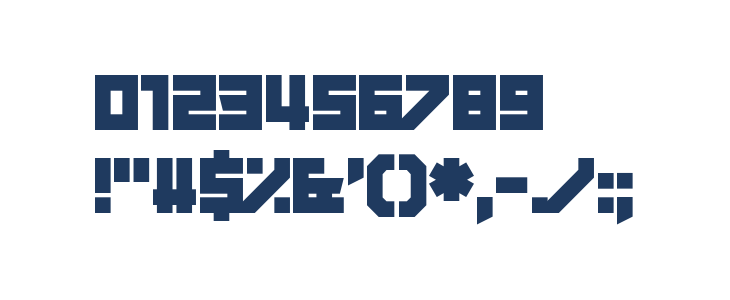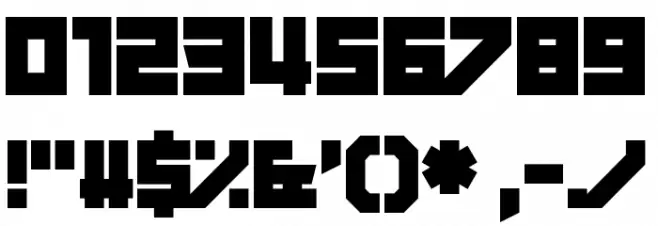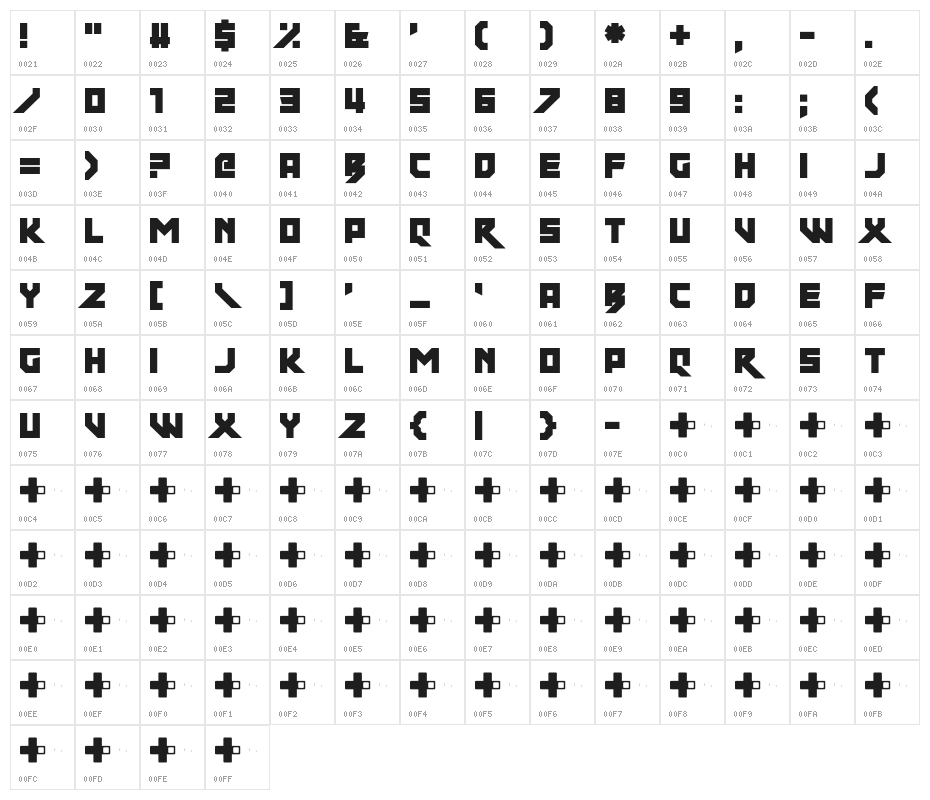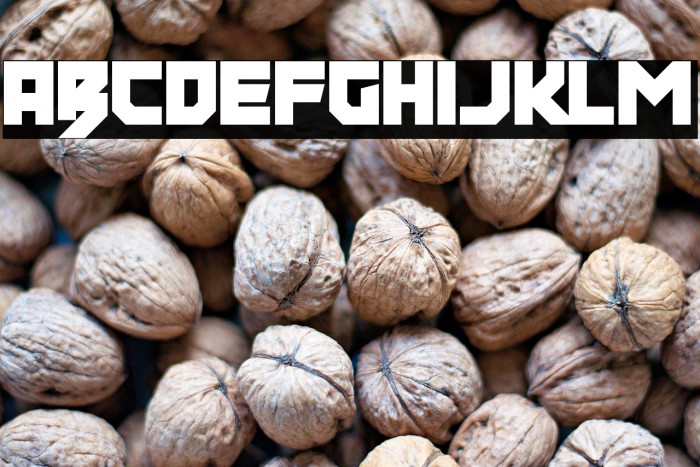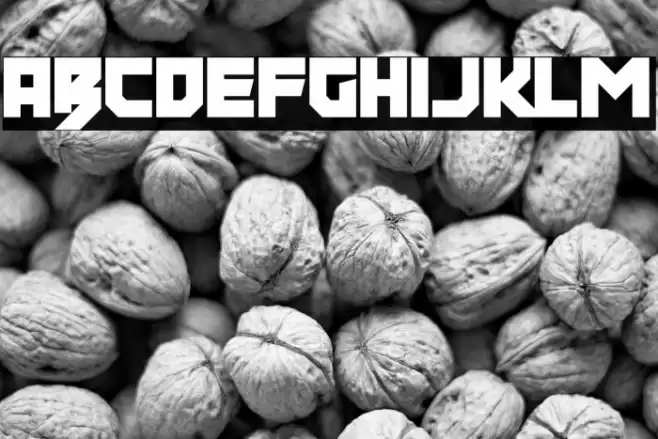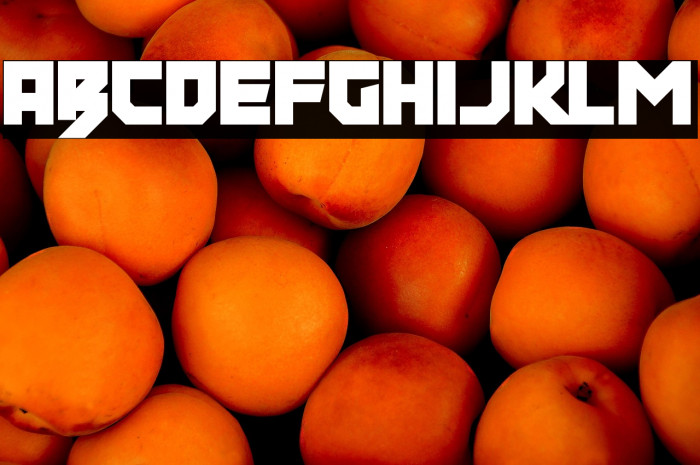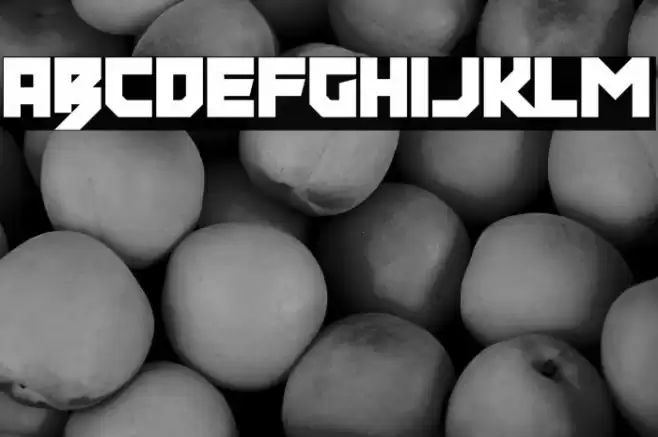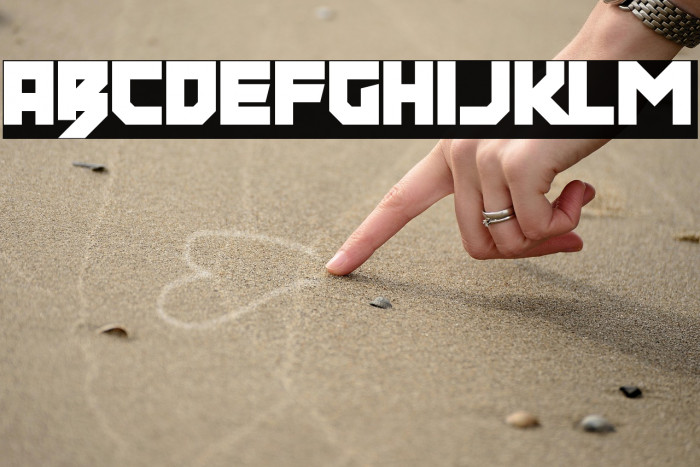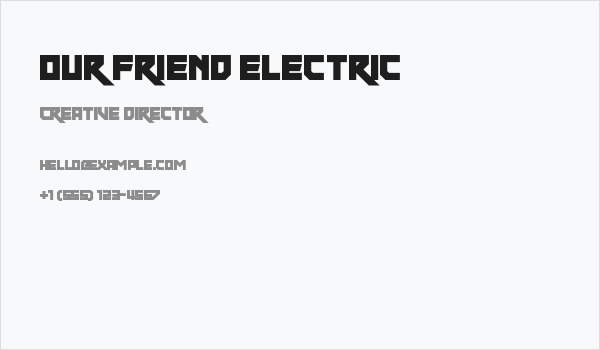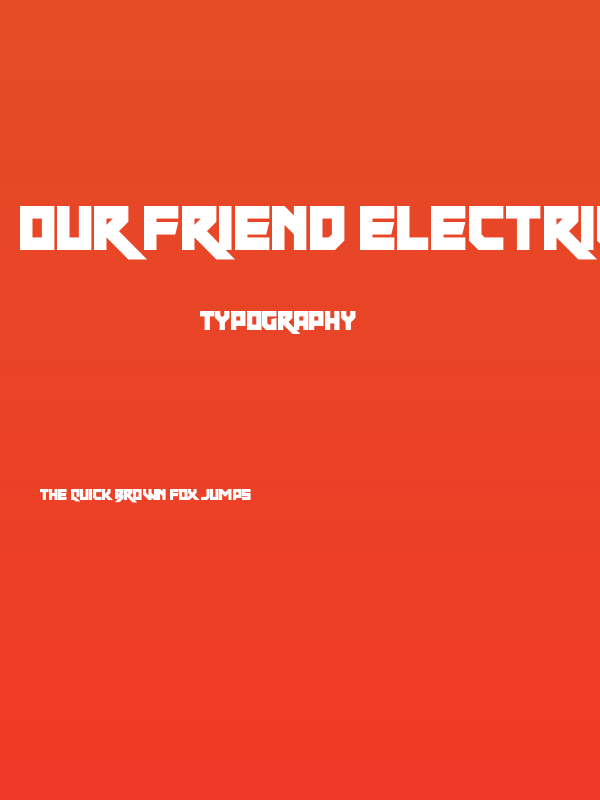
Our Friend Electric Font
Our Friend Electric Description
This font features a bold, geometric design with sharp angles and a futuristic aesthetic. The characters are constructed with thick, block-like strokes that convey a sense of strength and modernity. The uppercase and lowercase letters maintain a consistent style, emphasizing angular cuts and a uniform width. Numbers and special characters follow the same design principles, ensuring a cohesive look across all elements. The font's unique style makes it stand out, suitable for projects that require a bold and impactful visual presence.
| Proposed Projects | Ideal for sci-fi themed designs, video game titles, posters, and branding that requires a modern and bold aesthetic. |